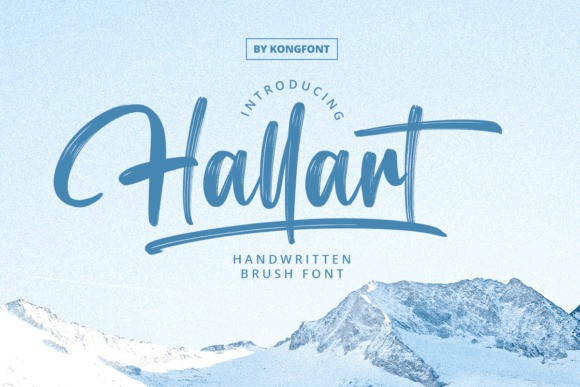
Hallart Font
Hallart Brush Font is a modern brushed typeface. Brush-style letterforms have a soft and lively feel to them, which makes it so tempting to use in design projects. Great as a headline font – also works great on social media posts!